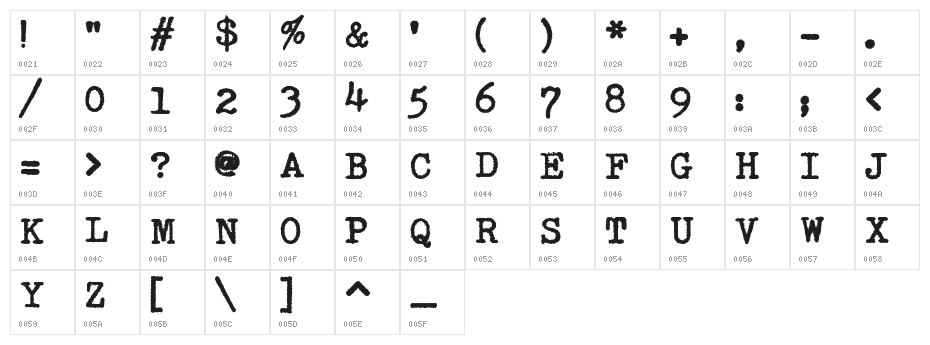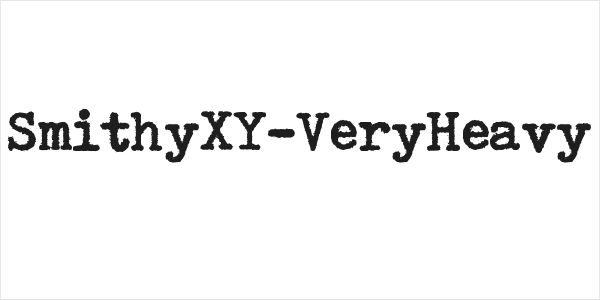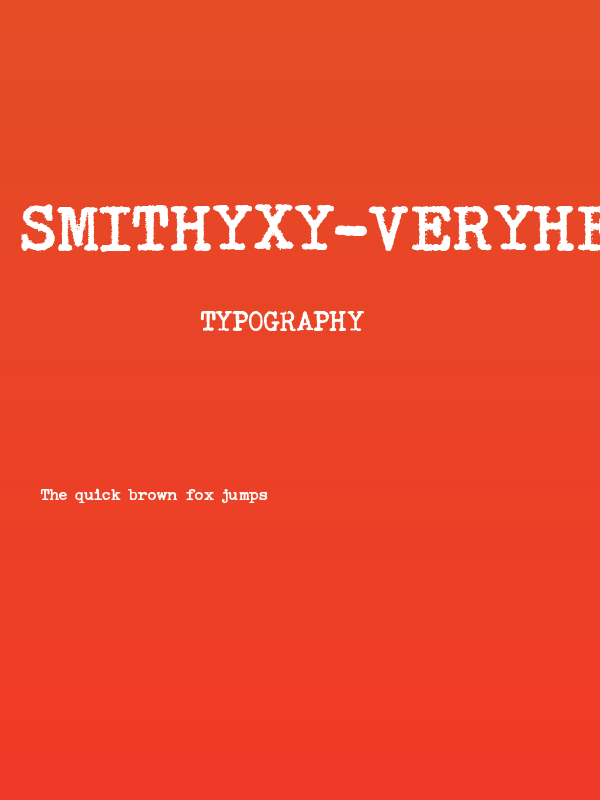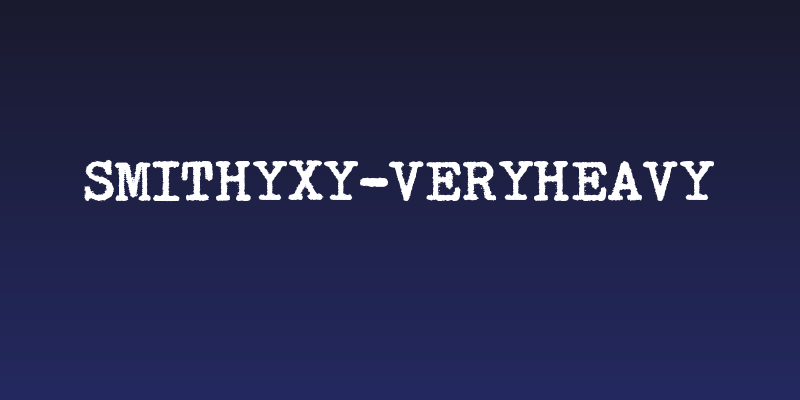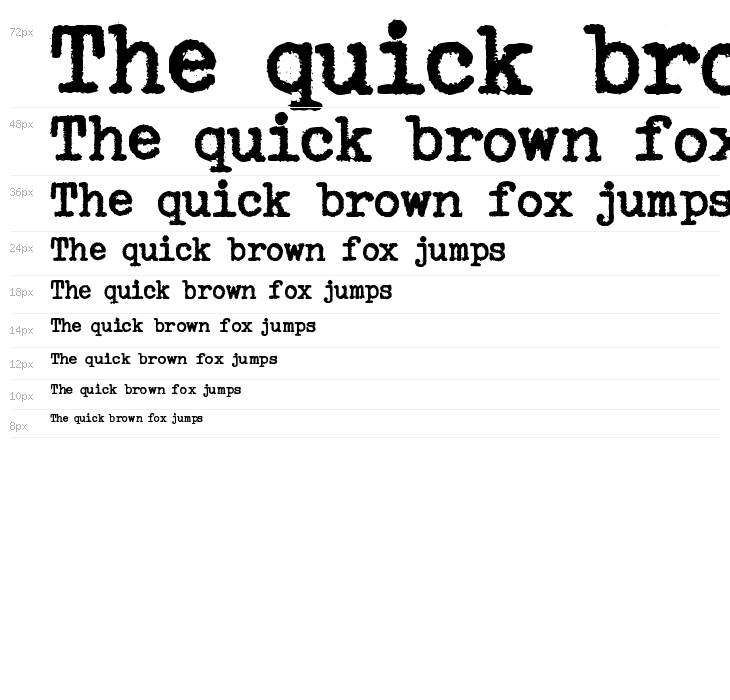
SmithyXY-VeryHeavy Font
SmithyXY-VeryHeavy Description
This font features a bold, textured appearance reminiscent of vintage typewriter styles. The characters are heavily weighted, with a rough, distressed texture that gives them a unique, handcrafted look. The uppercase and lowercase letters maintain consistent proportions, while the numerals and special characters are designed to complement the overall aesthetic. The font's boldness and texture make it stand out, ideal for projects that require a strong visual impact.
Overall StyleVintage
Proposed ProjectsIdeal for posters, logos, branding, and any design that requires a vintage or industrial feel.